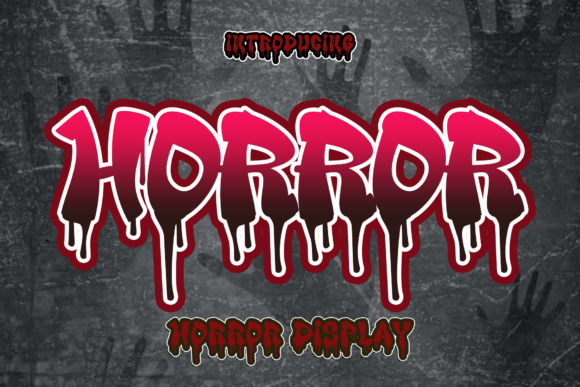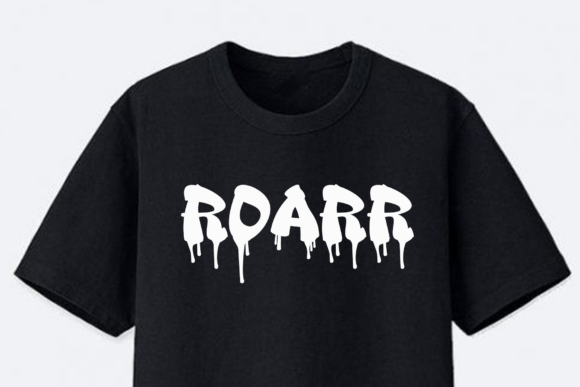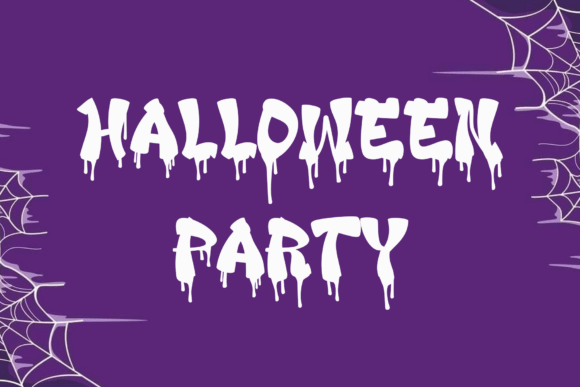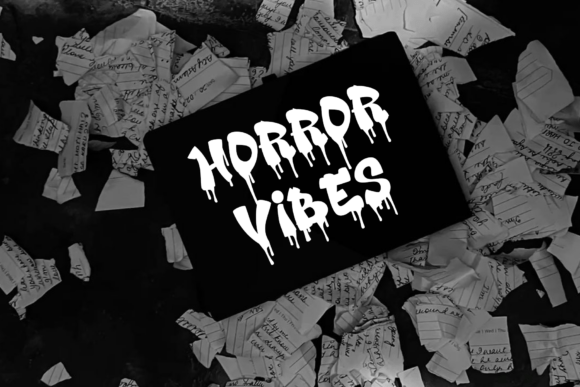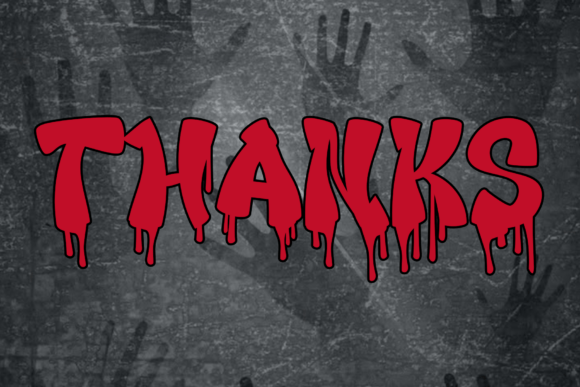
Unleash Your Inner Horror Story
Have you ever been brainstorming a project, and suddenly, a spark of creativity hits you? The ideas start flowing, and your imagination runs wild. That’s exactly what happens when you discover the perfect font to match your vision. For designers, finding the right font can make all the difference between a mediocre project and a masterpiece.
That’s where Horror Font comes in – a display font designed to evoke emotions and bring your creative ideas to life. Its unique design is perfect for those who want to add a touch of eeriness or intensity to their projects. With Horror Font, you can create a lasting impression on your audience and set your work apart from the rest. Whether you’re working on a design project or a writing piece, this font is sure to become your new favorite.
Key Features of Horror Font
- Font Family: Horror Font is a unique, hand-drawn font family that features a bold, eerie, and mysterious design.
- Font Styles: Available in 6 different font styles, including Regular, Italic, Bold, Bold Italic, Condensed, and Condensed Italic.
- Size: Each character in the font family is carefully crafted to ensure high-quality rendering at any size, from 8pt to 72pt.
- Resolution: Optimized for print and digital use, Horror Font is designed to look great at resolutions up to 300 DPI.
- Unique Characteristics: The font features a distressed, hand-drawn look with subtle imperfections and texture, giving it a haunting and atmospheric feel.
Designer Review: Horror Font
Overall, I’d say Horror Font is an interesting choice for those who want to add a spooky touch to their designs. ✨ The font’s unique and quirky design can be quite effective in grabbing attention and setting a creepy atmosphere.
- Customization options are decent, with support for a range of weights and sizes.
- The font’s irregular shape and letterforms make it perfect for titles and headings.
- Horror Font has a unique, hand-drawn feel that can add a touch of personality to designs.
However, there are a few limitations that might make it less suitable for some projects. ⚠️ The font can be difficult to read, especially at smaller sizes or in long blocks of text. Additionally, the design can feel a bit too kitschy or over-the-top for more subtle or serious designs.
Overall, I’d recommend Horror Font for projects that require a bold, attention-grabbing font with a spooky vibe. Just be mindful of its limitations and use it sparingly to avoid overwhelming the design.
Horror Font is ideal for creating spooky and eerie designs, such as:
- Haunted house invitations
- Spooky movie posters
- Creepy Halloween decorations
- Paranormal-themed social media graphics
To get the most out of Horror Font, experiment with different font sizes, colors, and effects, such as bolding or italicizing, to create a haunting and atmospheric look.